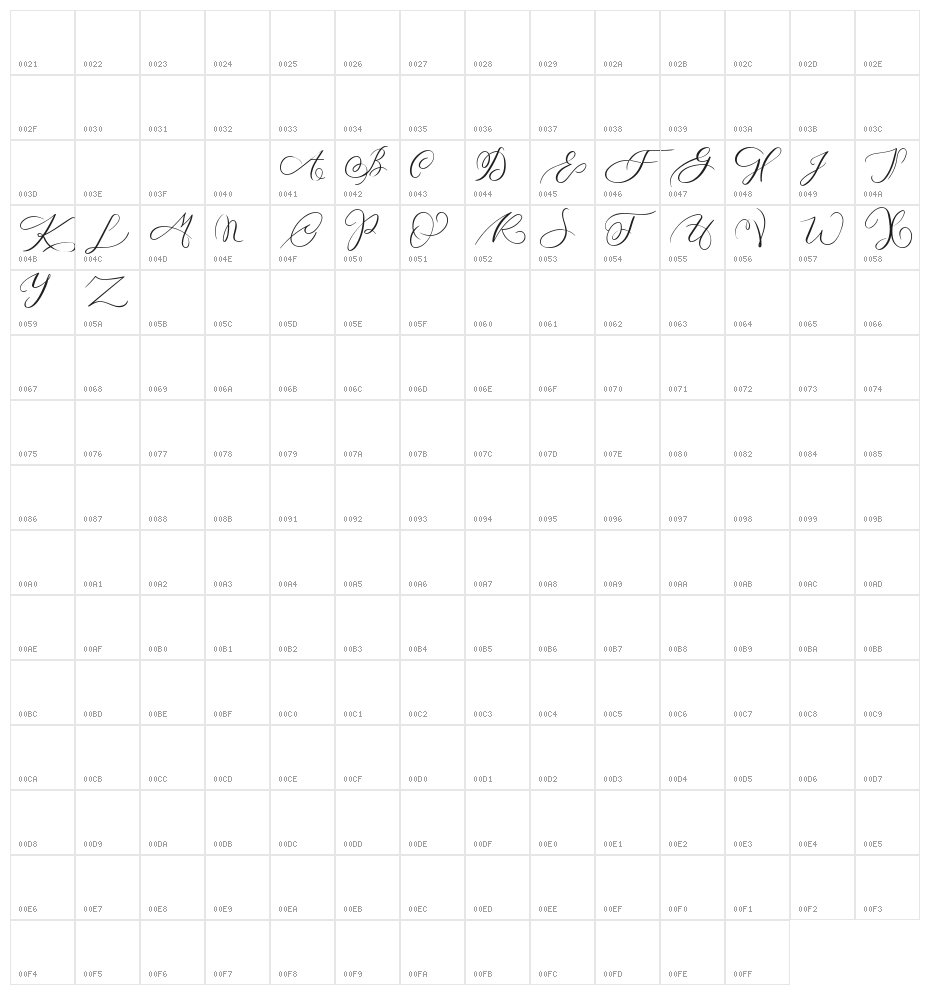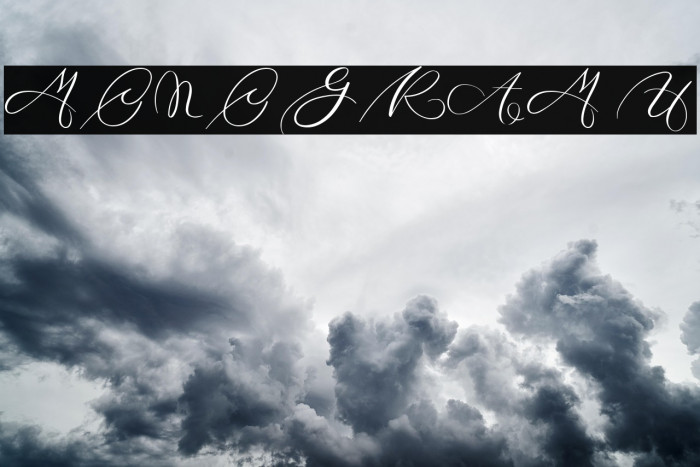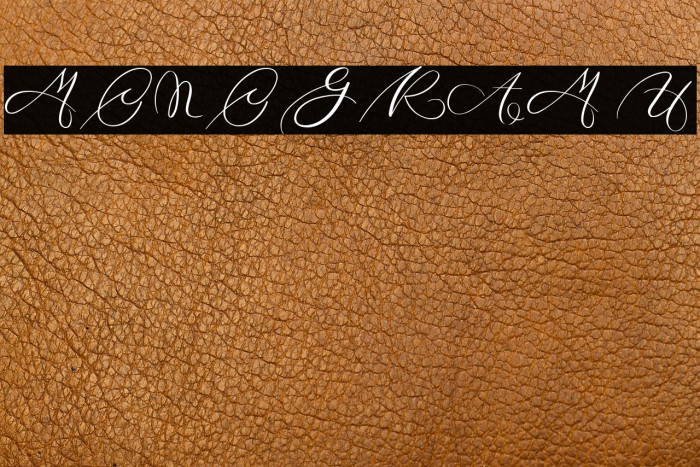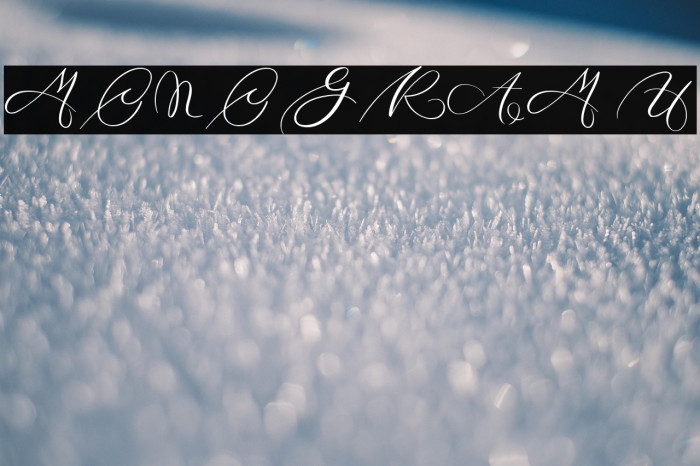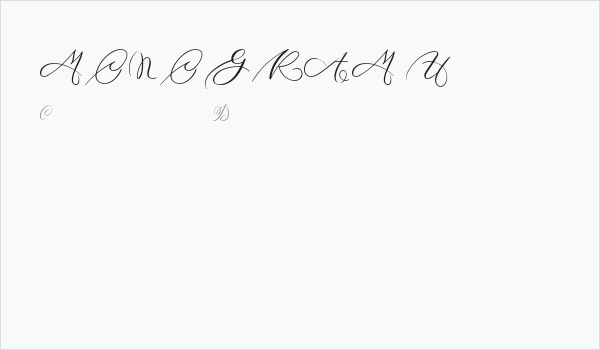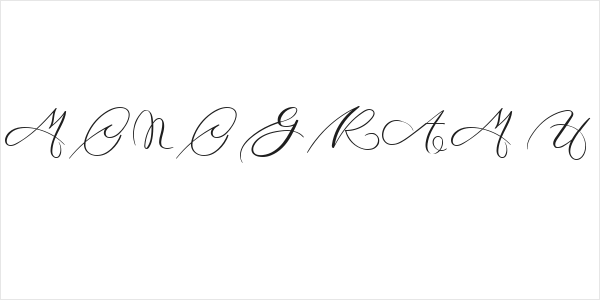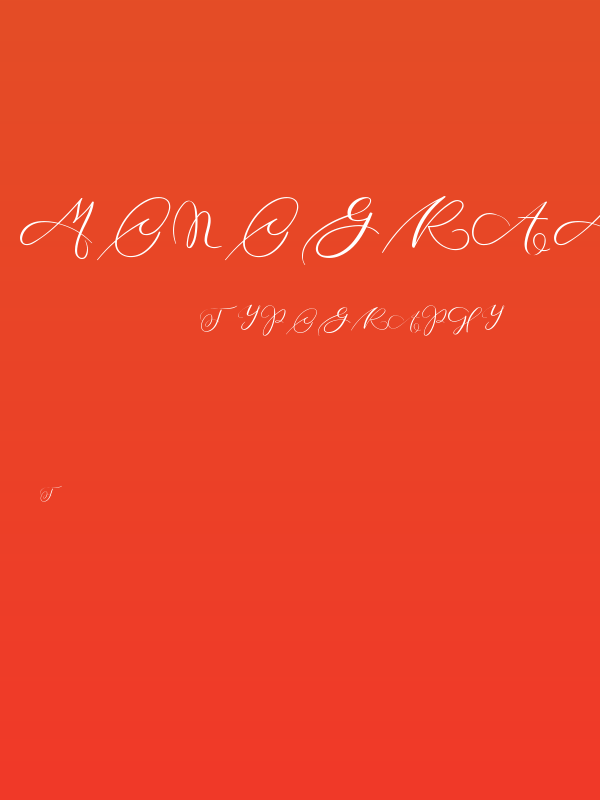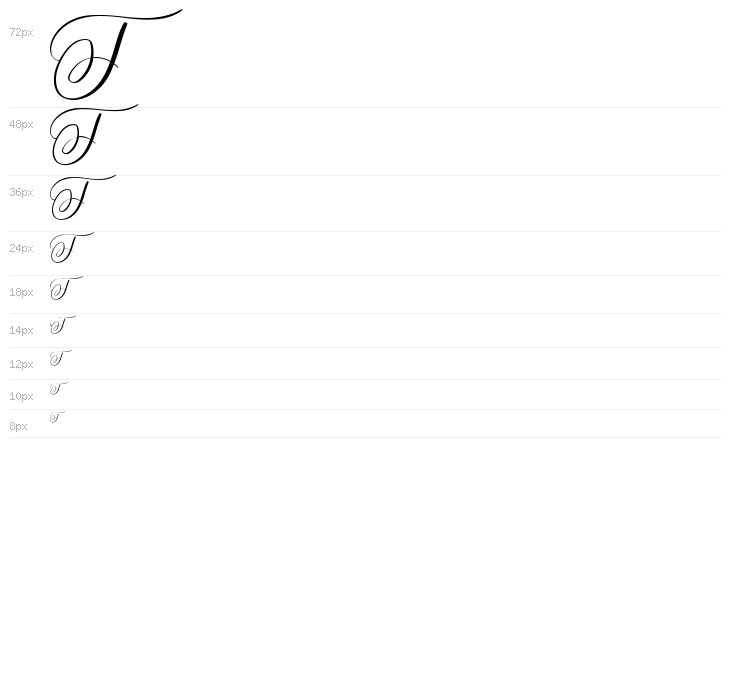
MONOGRAM U Font
MONOGRAM U Description
This elegant script font features intricate, flowing lines and ornate detailing. Each letter is crafted with a high level of artistry, showcasing graceful curves and flourishes that convey a sense of sophistication and luxury. The uppercase letters are particularly elaborate, with sweeping strokes that extend beyond the baseline and cap height, creating a sense of movement and fluidity. The lowercase letters maintain this decorative style, ensuring consistency throughout the typeface. The font's delicate and refined appearance makes it ideal for formal and high-end applications.
| Use Case | Logos, Invitations, Branding |
| Proposed Projects | Ideal for wedding invitations, luxury branding, elegant stationery, and high-end packaging. |